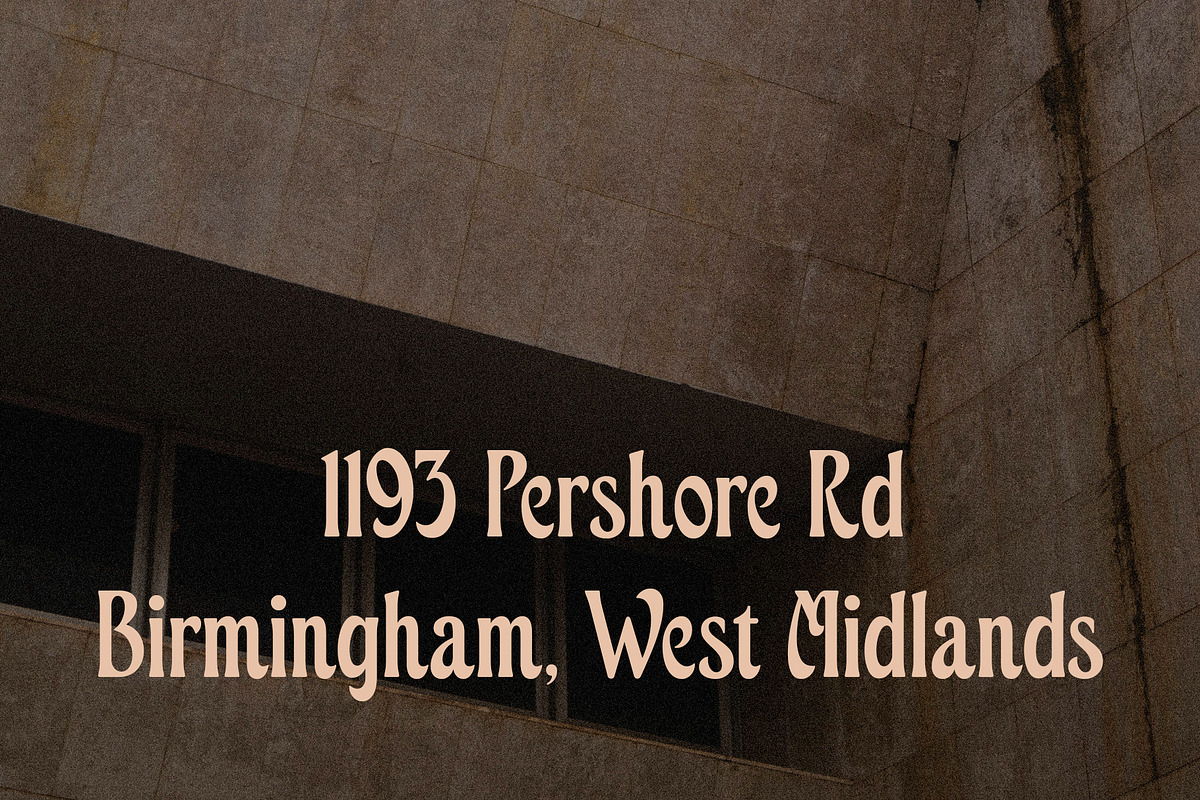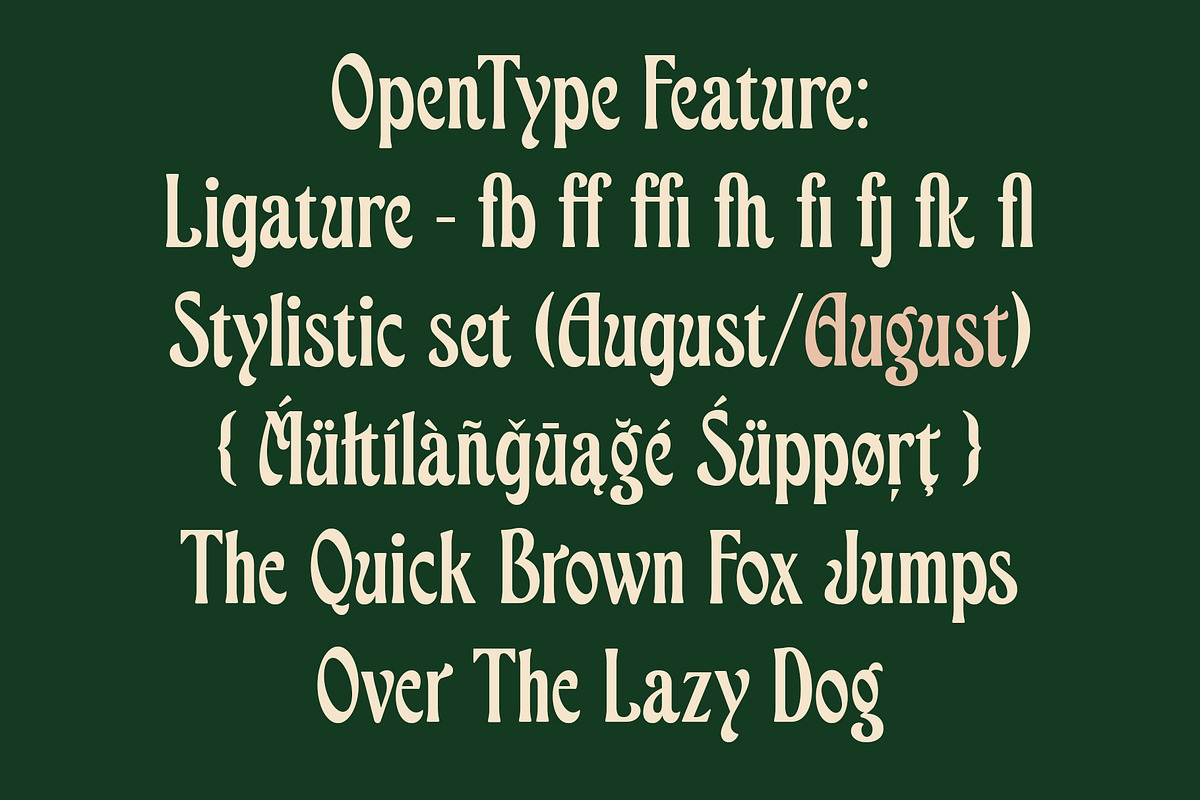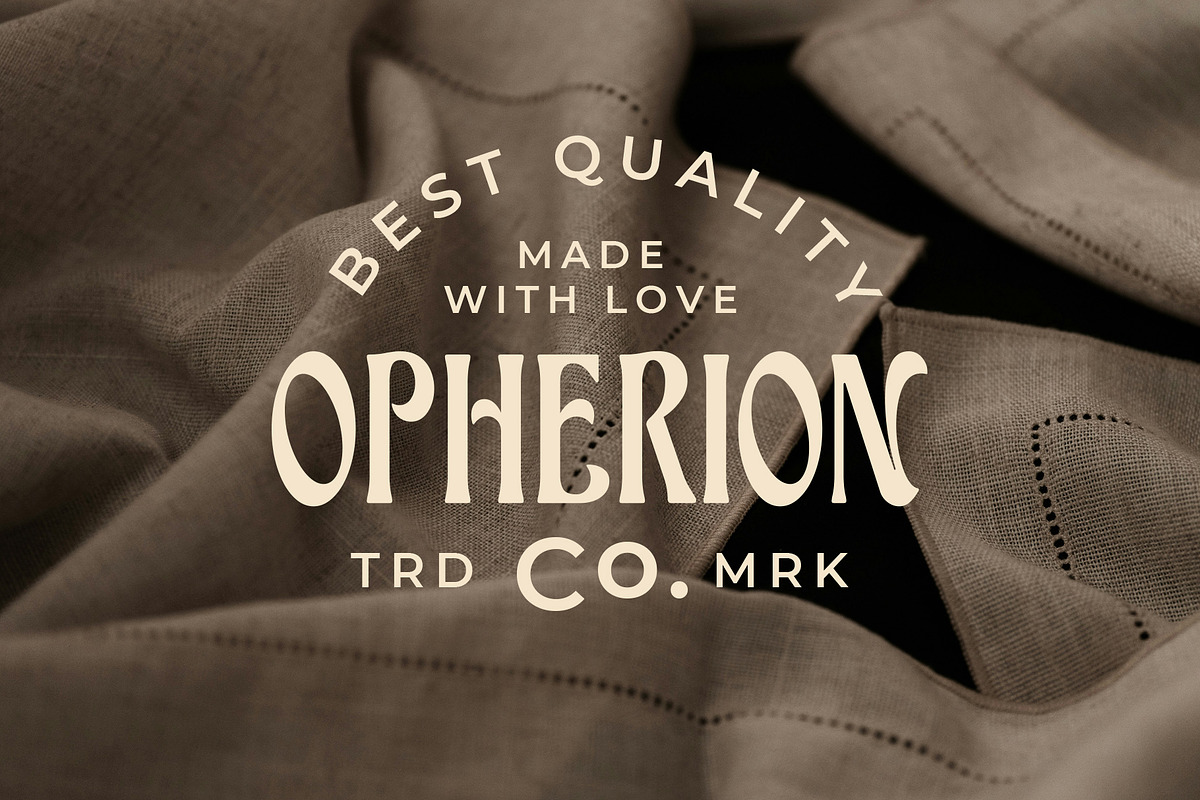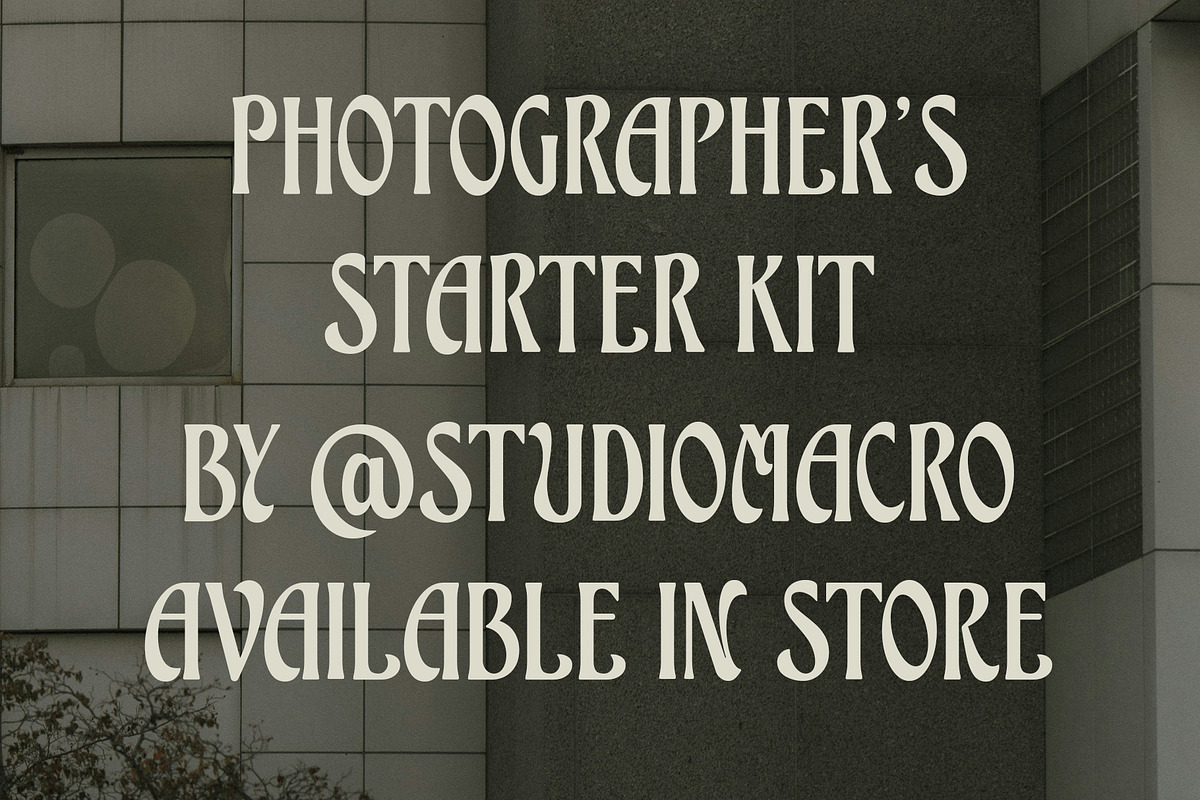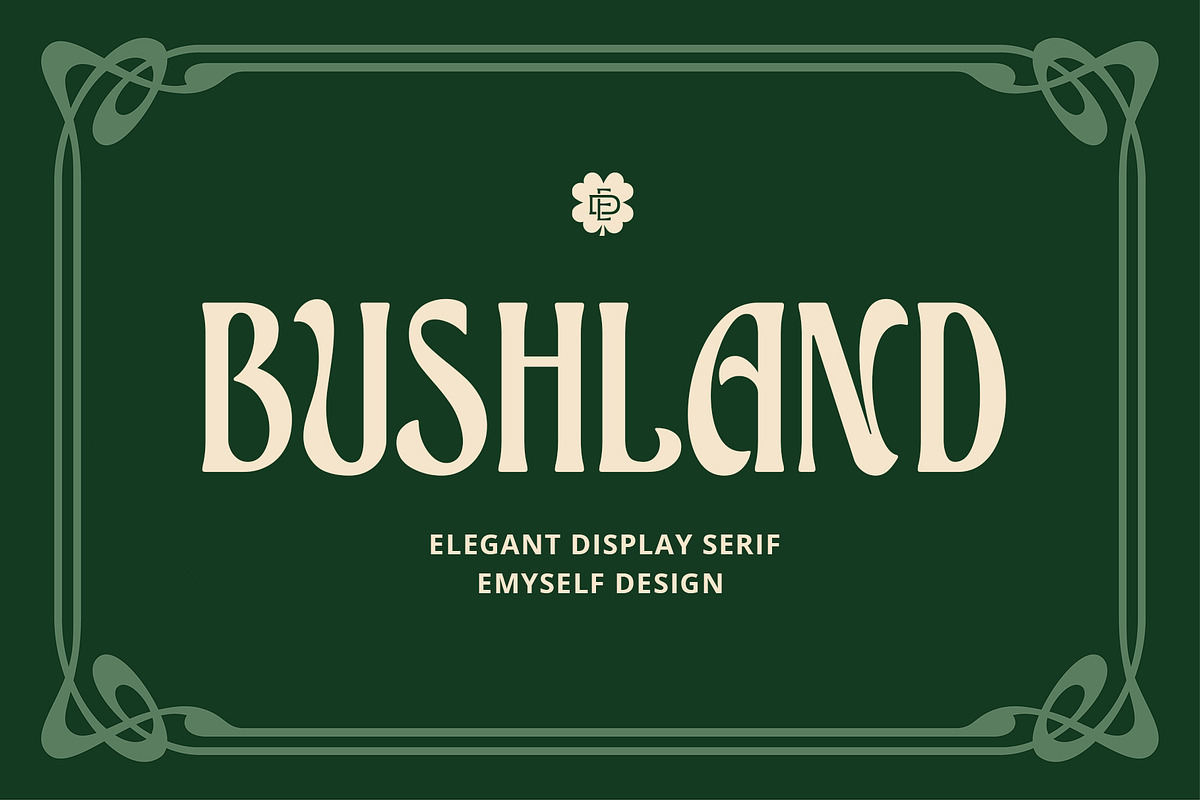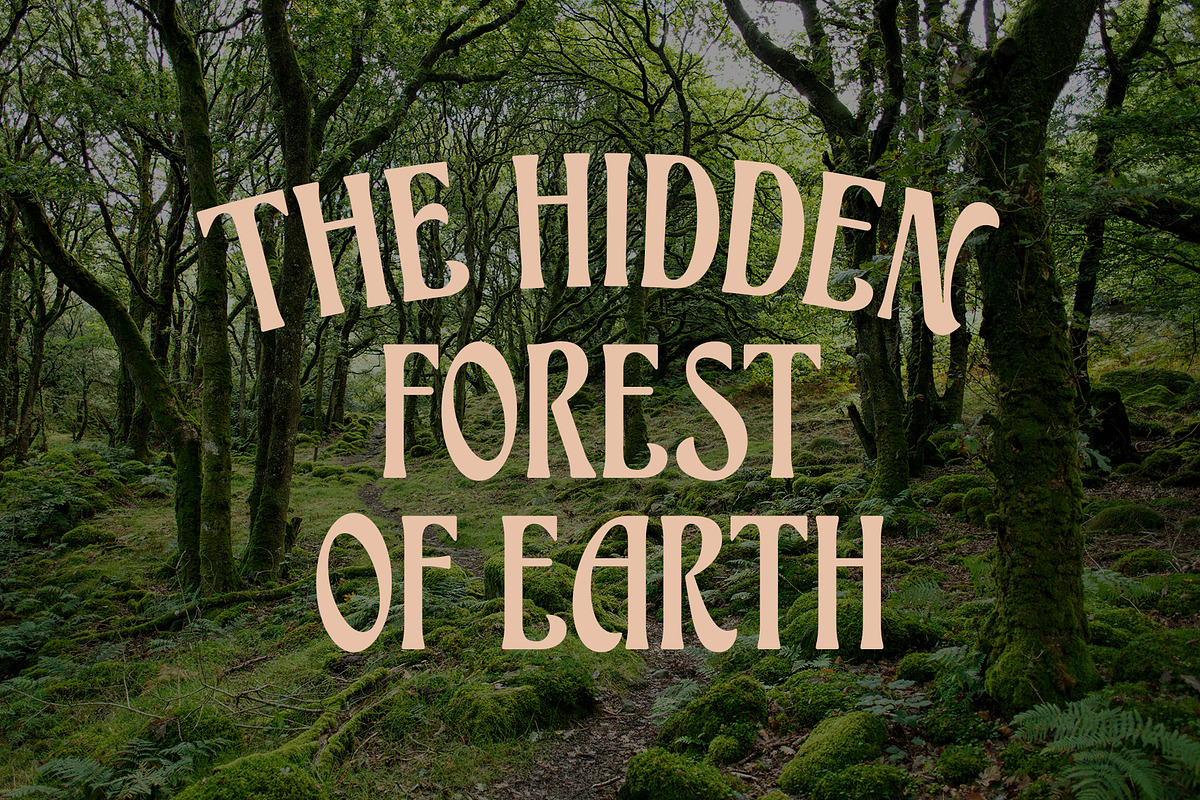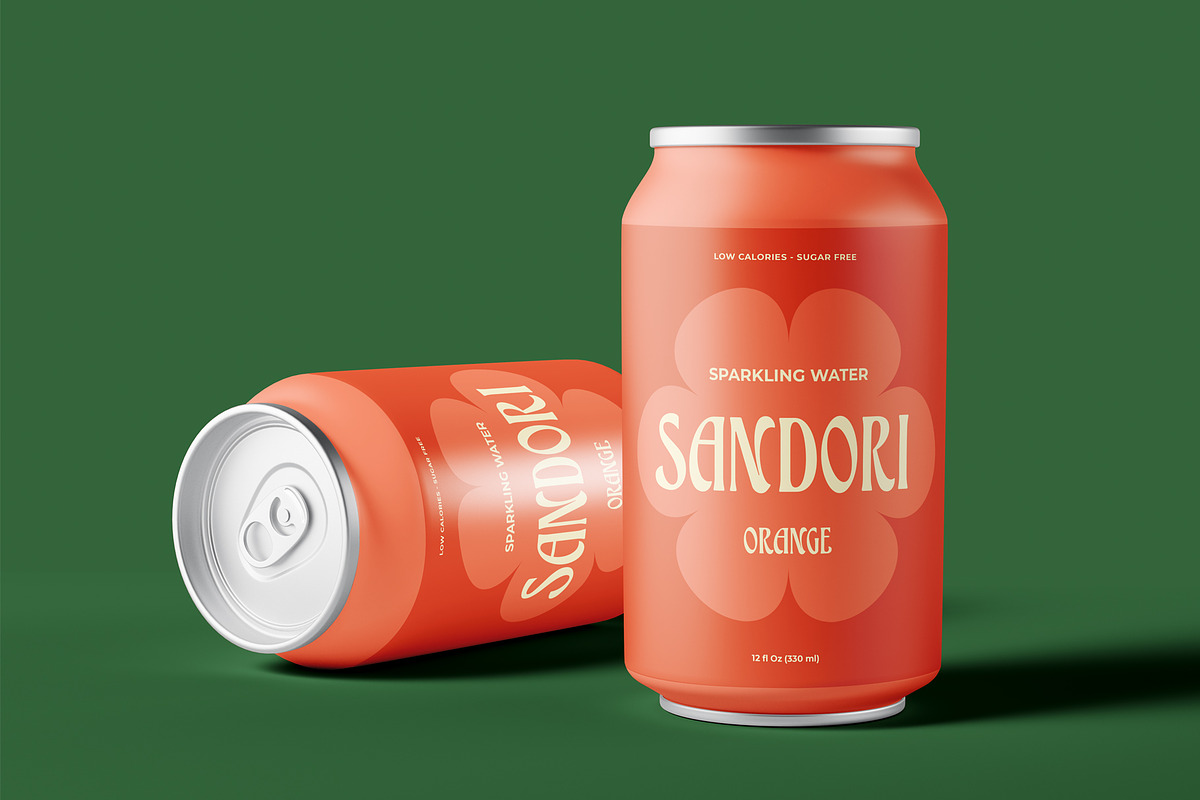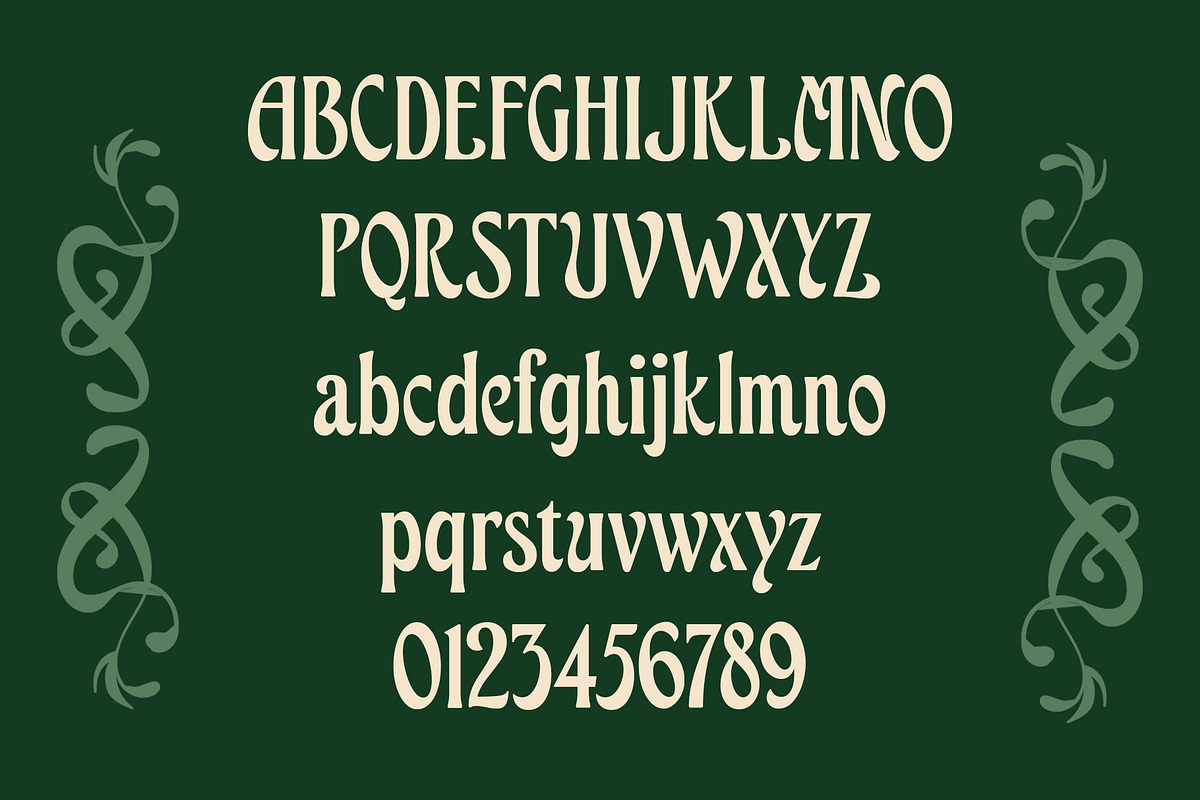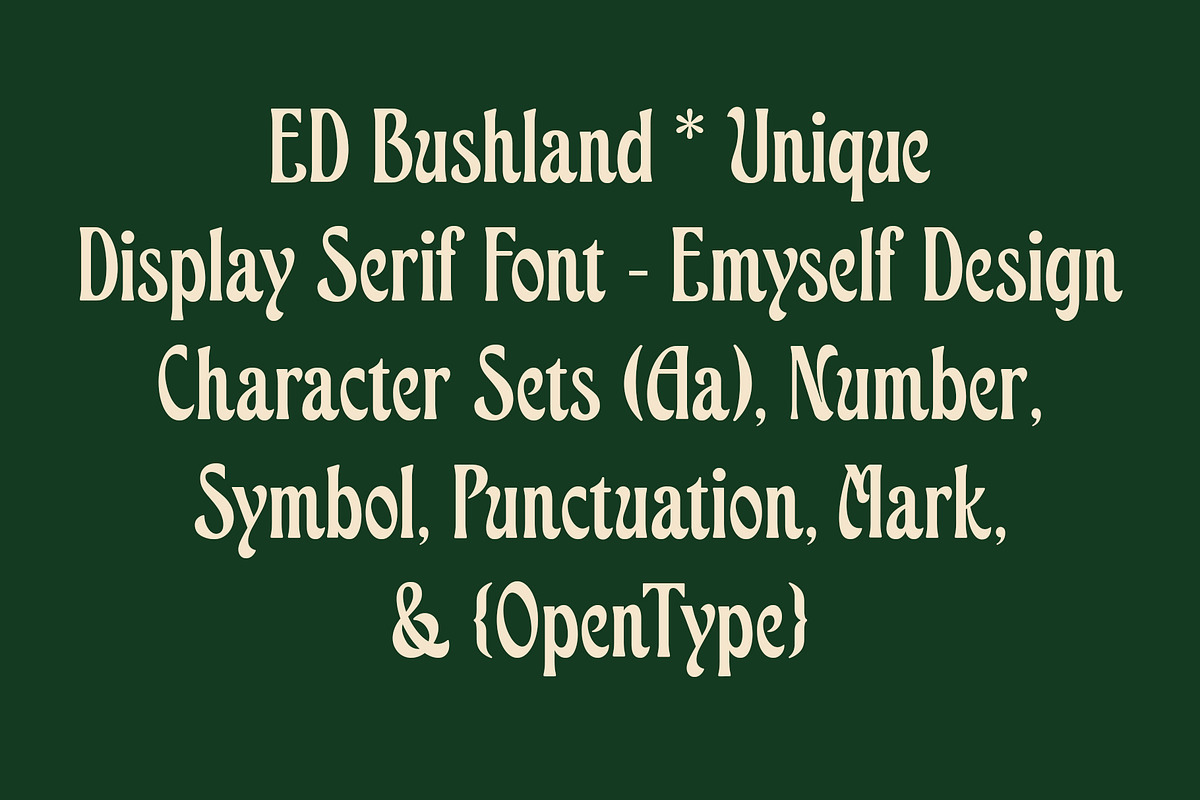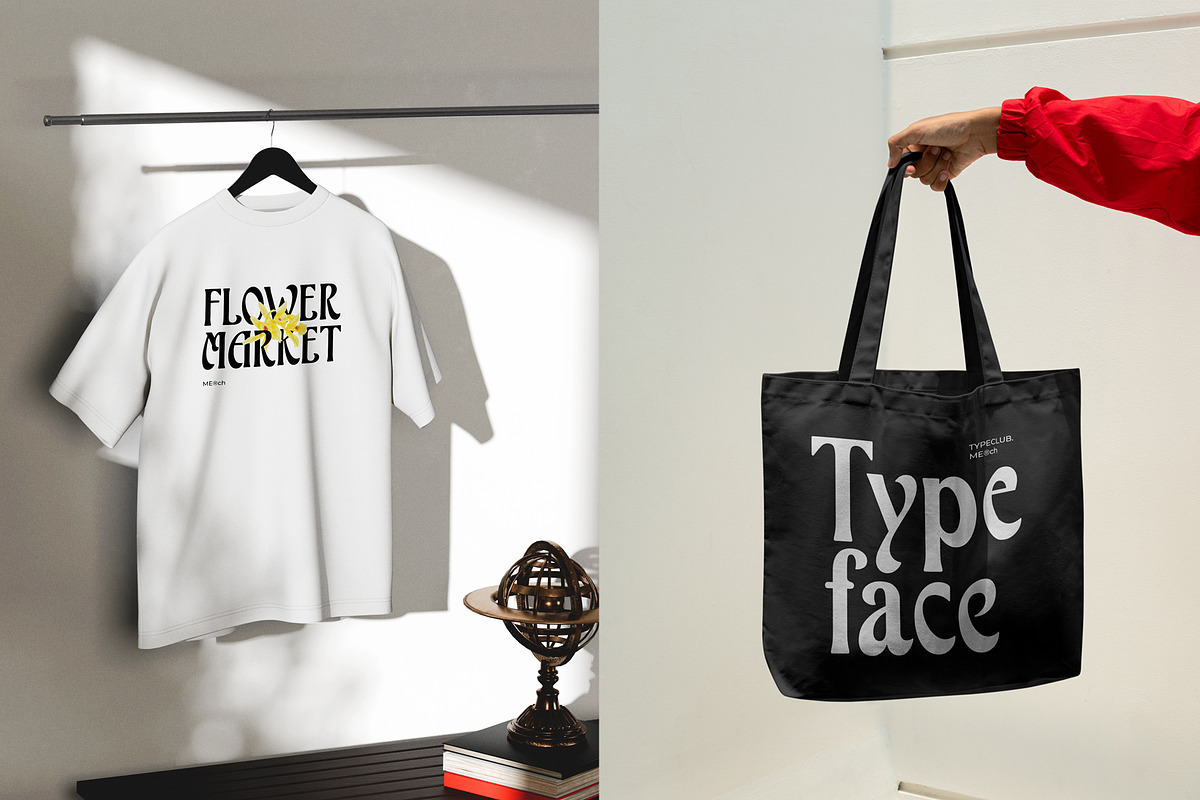
ED Bushland - Unique Display Serif
ED Bushland is a unique, groovy serif display font that conveys a unique feel and strong character in every curve of its letters. Inspired by classic typography from the early 1900s and combined with elegant touches of Art Nouveau, ED Bushland is a captivating modern interpretation.
Each letter has a subtle yet expressive visual rhythm—ideal for designs that emphasize retro elegance with a modern twist. It's suitable for logos, posters, packaging, labels, and any branding project that requires a strong, classy typography.
- Punctuation and Marks
- Stylistic set & Ligatures